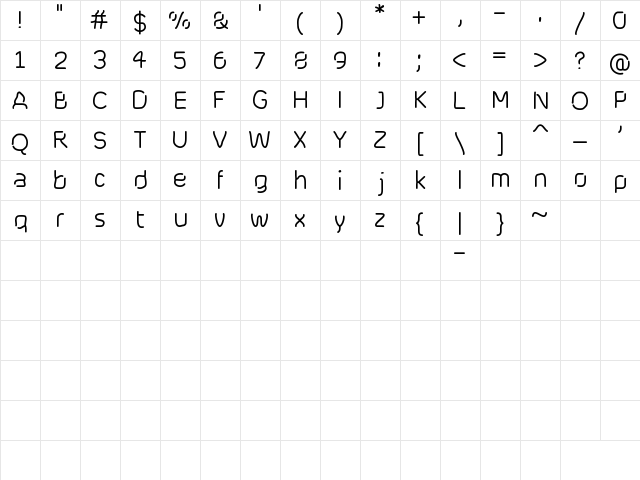
Cranberry Blues Regular
Design Context for Cranberry Blues Typeface
Cranberry Blues takes a measured approach to typography — its balanced proportions and neutral character make it a reliable workhorse for both digital and print work.
Pro Tip: Use Cranberry Blues in both headline and body roles to test its range before committing to a single application.